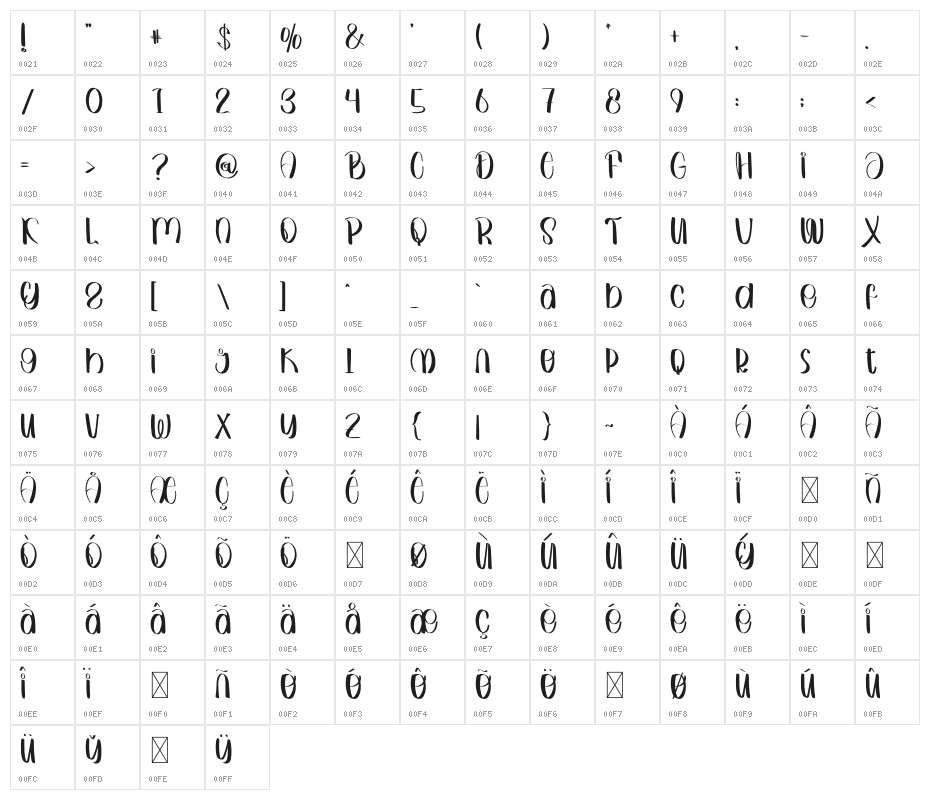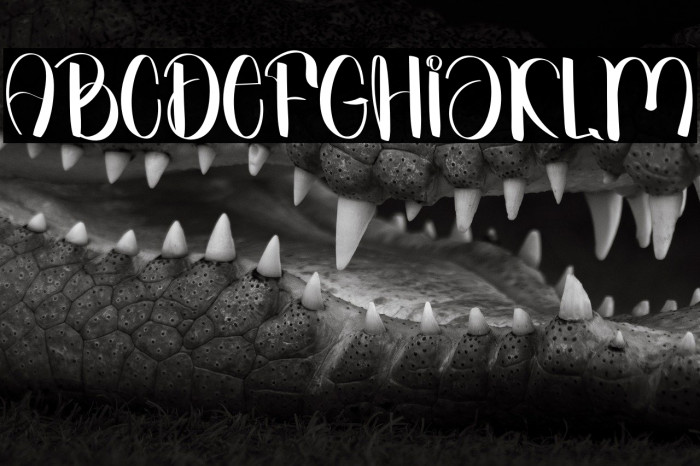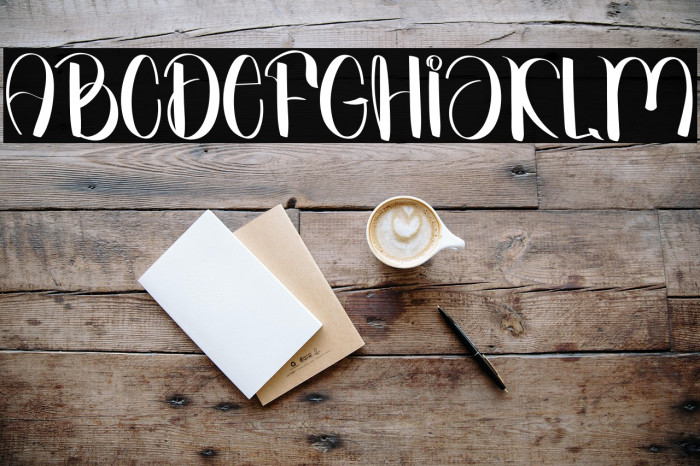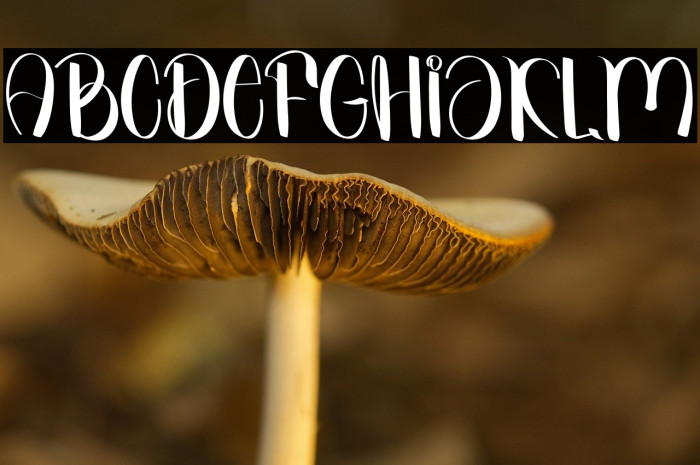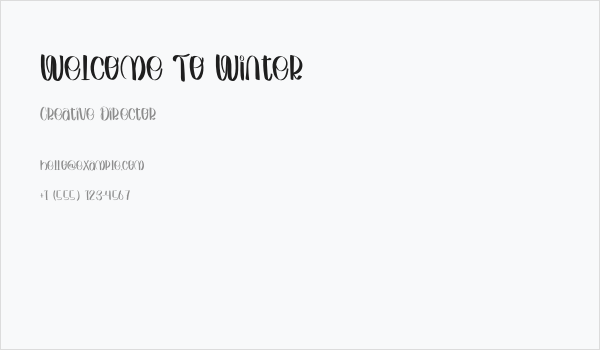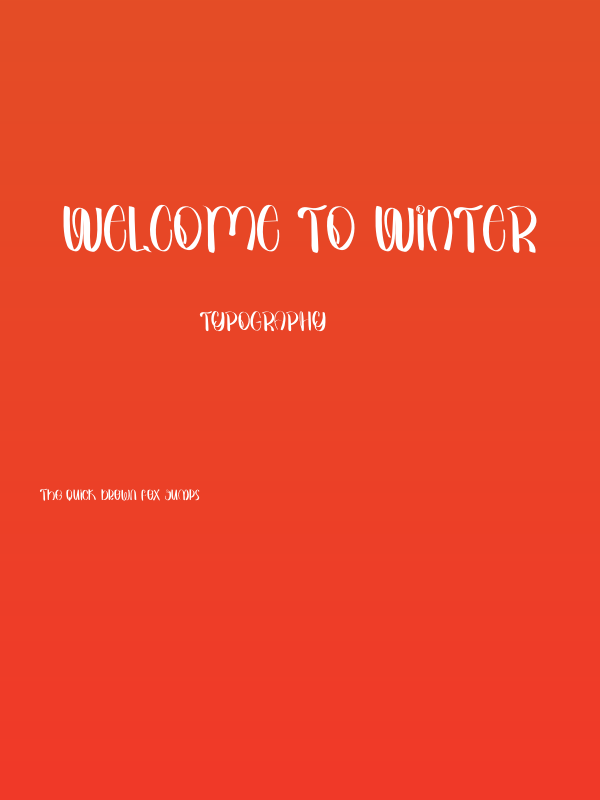
Welcome To Winter Font
Welcome To Winter Description
This font features a playful and whimsical style with a handwritten touch. The characters are bold and have a unique, flowing design that gives them a sense of movement and energy. The uppercase and lowercase letters maintain a consistent style, with some letters featuring loops and curls that add to the overall charm. The numbers and special characters are equally expressive, making this font suitable for creative and artistic projects. The strokes are thick and vary slightly in width, adding to the dynamic appearance of the font.
| Proposed Projects | Ideal for greeting cards, playful branding, children's books, and creative posters. |